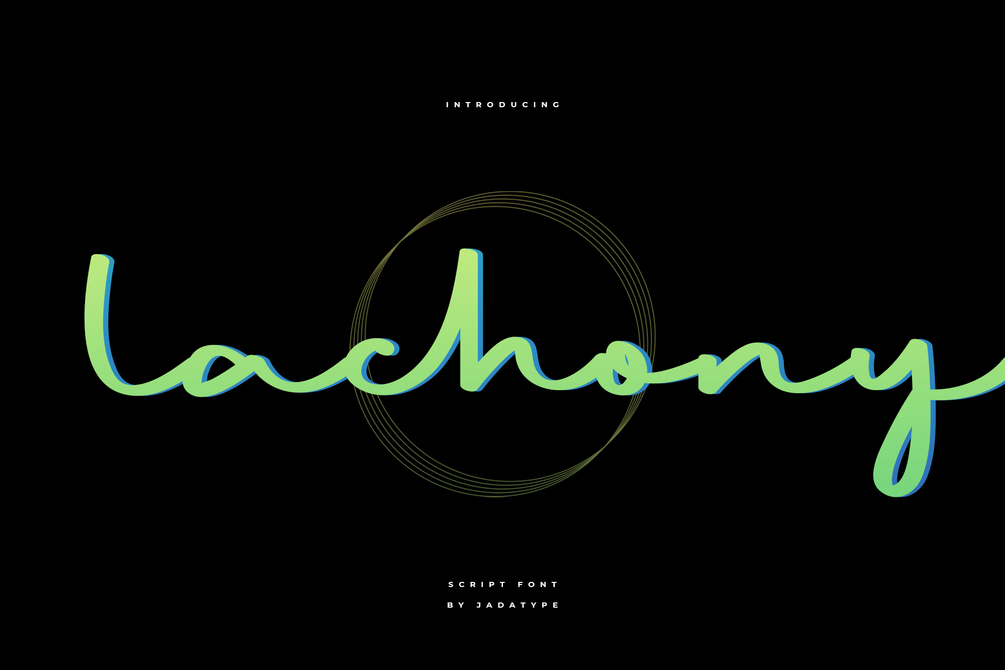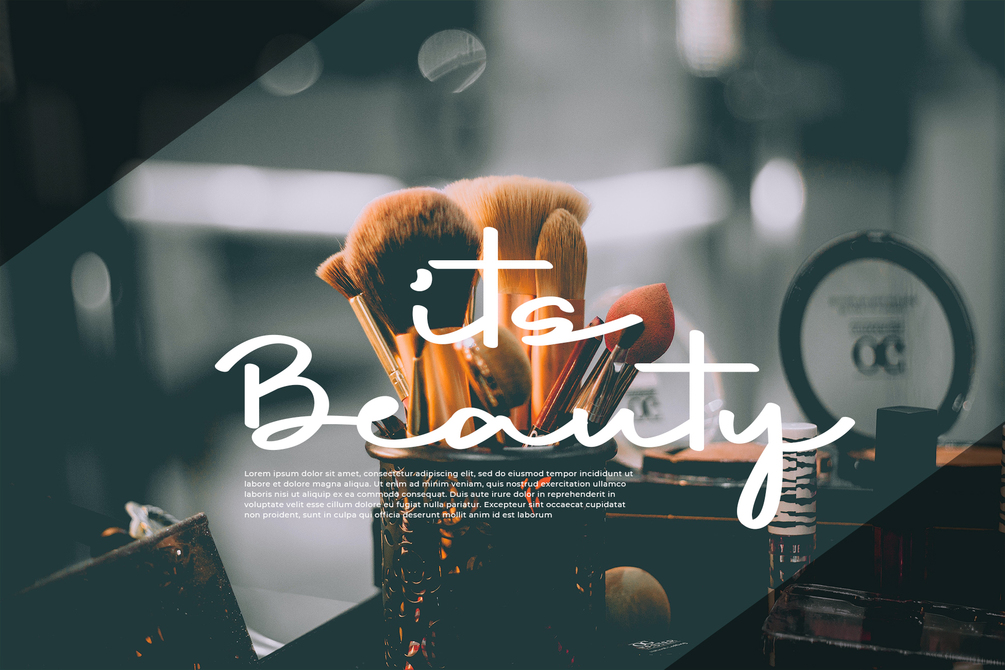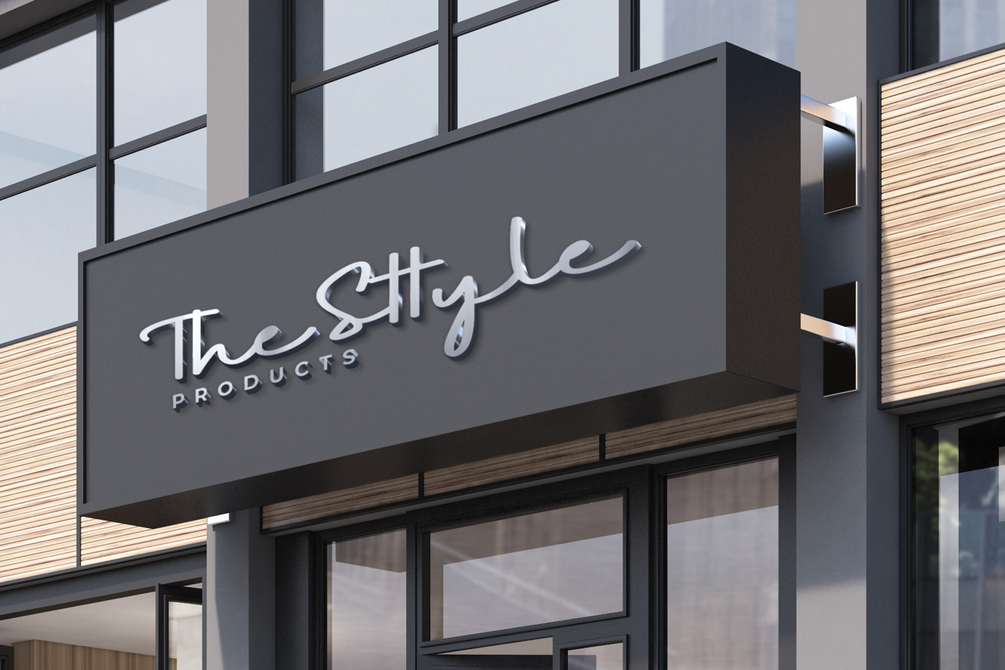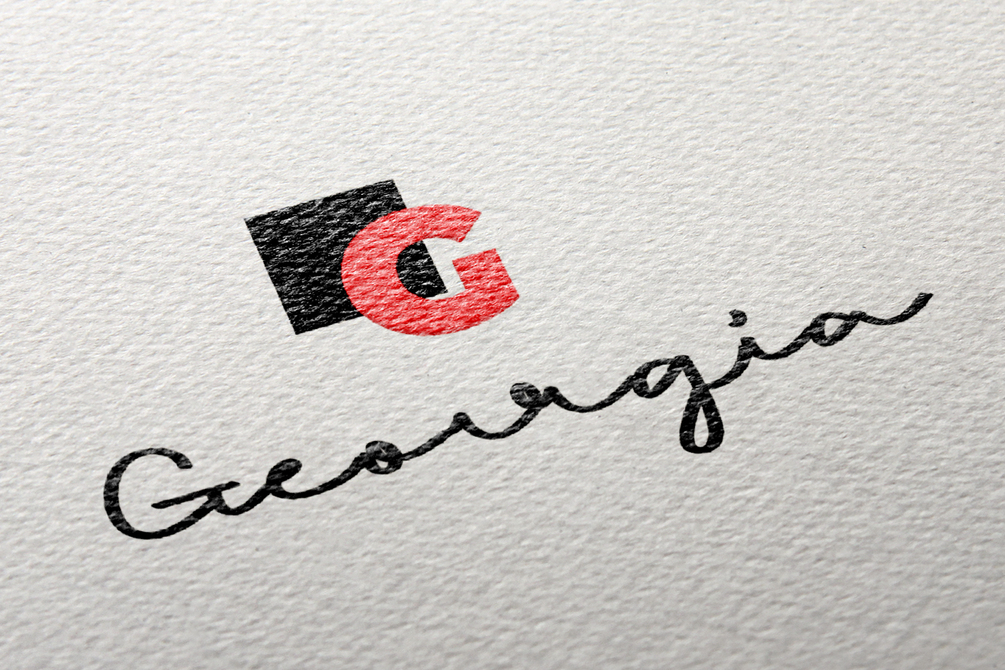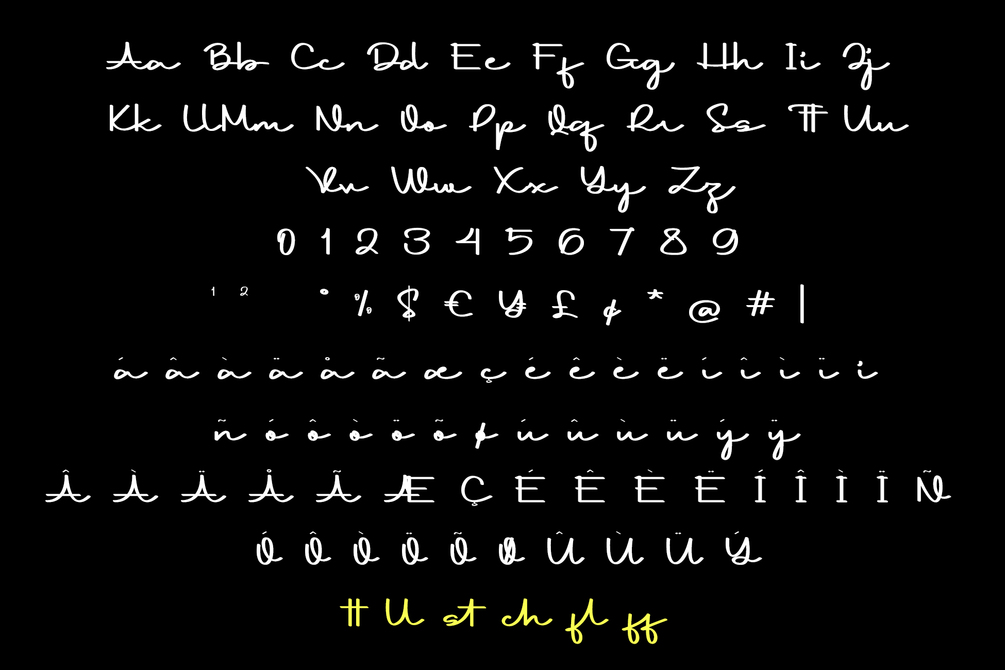
Lachony Font
Lachony is a font with a stylish brush script style. suitable for branding, social media, products, advertisement, and so on. contains standard English letters, numbers, punctuation, and several accents that support multilingualism.